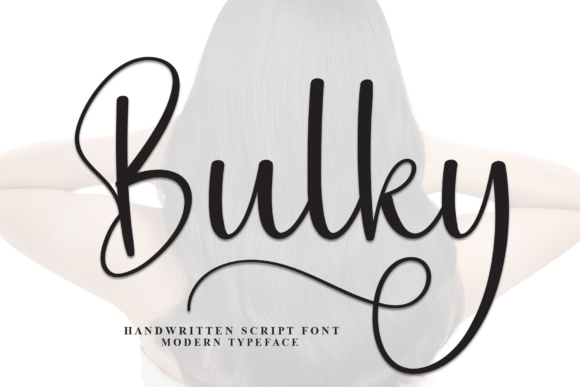
The Designer’s Delight: Unpacking the Bulky Font
I’ll never forget the time I was working on a branding project for a trendy boutique, and I just couldn’t find the right font to capture their artistic vibe. The client wanted something that exuded elegance, yet had a playful twist. That’s when I stumbled upon the Bulky font, and it instantly became my go-to. In this article, I’ll share my love for this stylish script font, its features, and how to make the most of it in your designs.
First Impressions: What I Love About Bulky
Bulky is more than just a font – it’s an artistic statement. Here are the things that make it stand out:
- ✨ Fluid brush strokes that give it a hand-painted feel
- ✅ Dynamic curves and expressive letterforms that add a touch of elegance
- 💫 Perfect blend of modernity and classic calligraphy
- 🎨 Versatile and adaptable to various design projects, from logos to social media graphics
The Not-So-Perfect: A Few Quirks
While Bulky is an amazing font, it’s not without its limitations. Here are a few things to keep in mind:
- 🤔 It may not be the best choice for body text, as it’s quite ornate and attention-grabbing
- ⚠️ Some characters may not work well at very small sizes, so be mindful of legibility
The Story Behind Bulky: Designer Inspiration
While the true story behind Bulky remains a mystery, it’s easy to imagine a designer with a passion for calligraphy and modern art creating this font. Perhaps they were inspired by the fluid strokes of a brush and the elegance of hand-painted letters. Whatever the story, Bulky is a true gem in the world of typography.
| Font Name | Bulky Font |
| Is Bulky suitable for body text? | No, Bulky is best used for headlines, titles, or short paragraphs due to its ornate and attention-grabbing nature. |
| Does Bulky support OpenType features? | Yes, Bulky supports OpenType features, including stylistic alternates and glyphs. |
In conclusion, Bulky is a versatile and stylish font that can elevate your designs to the next level. With its fluid brush strokes, dynamic curves, and expressive letterforms, it’s perfect for creative projects that require a touch of elegance and sophistication. So go ahead, get creative, and make Bulky a part of your design story!